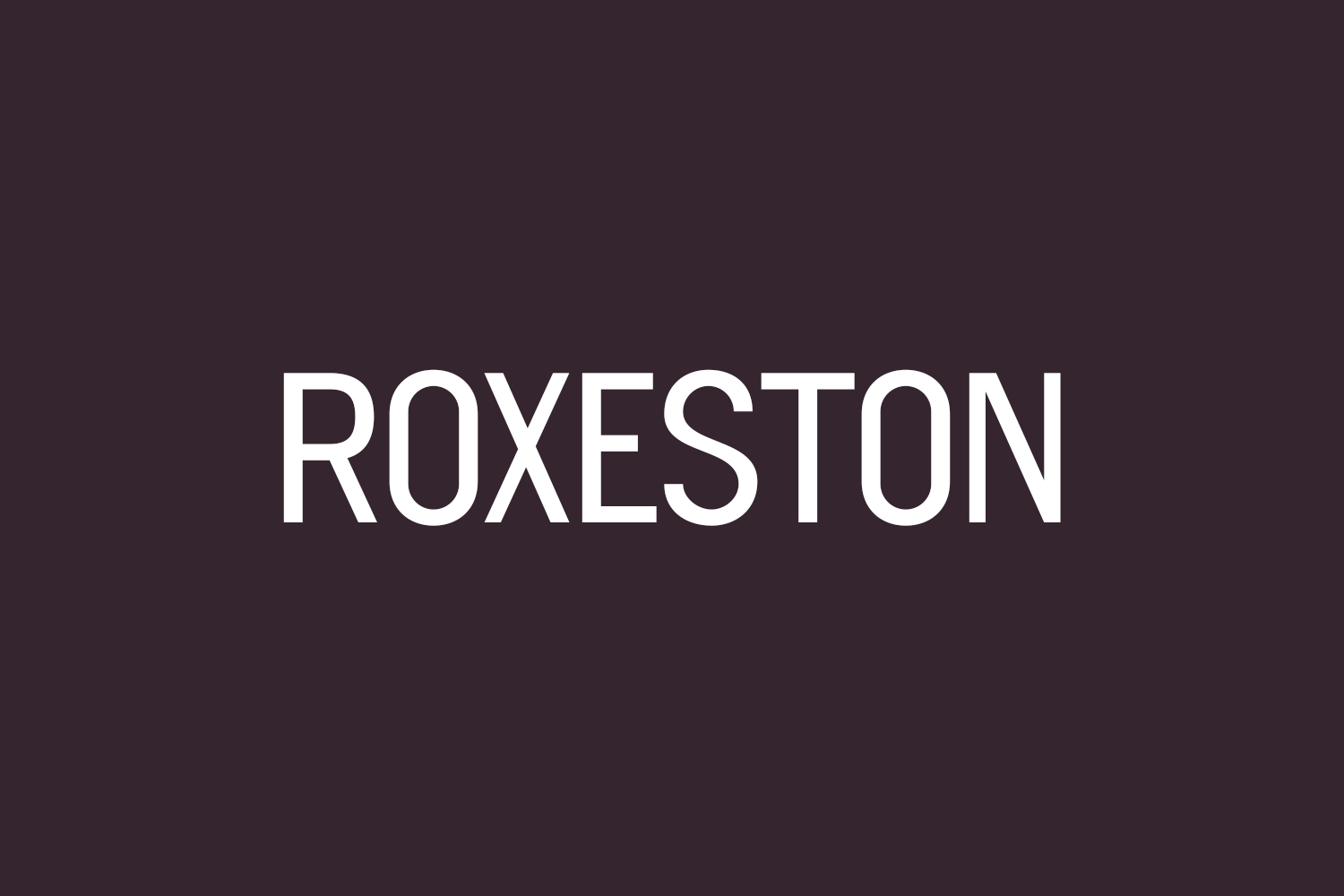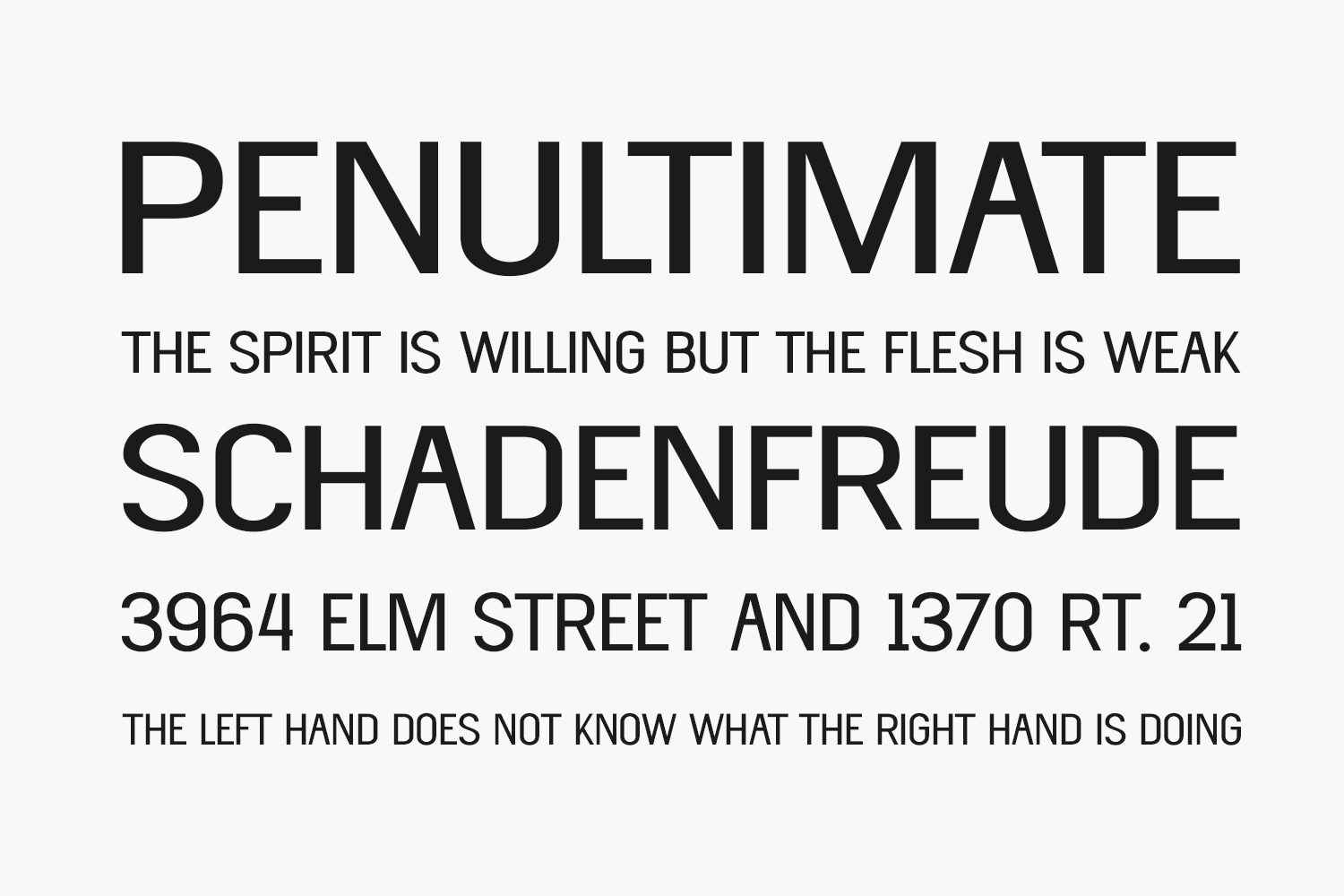
Introducing Roxeston Free Font, a contemporary sans serif typeface designed to meet market trends. Responding to demand, we’ve crafted a serif font that exudes a bold, authentic, and modern vibe – poised to capture the market’s admiration. Maintaining an air of elegance, class, and readability, Roxeston Free Font combines style and functionality seamlessly. Ideal for logo branding, template design, esports, books, quotes, album covers, and more, Roxeston Font is your gateway to elevated design possibilities. Elevate your creations with Roxeston Free Font is free for personal use only. Please purchase the full version for commercial use.